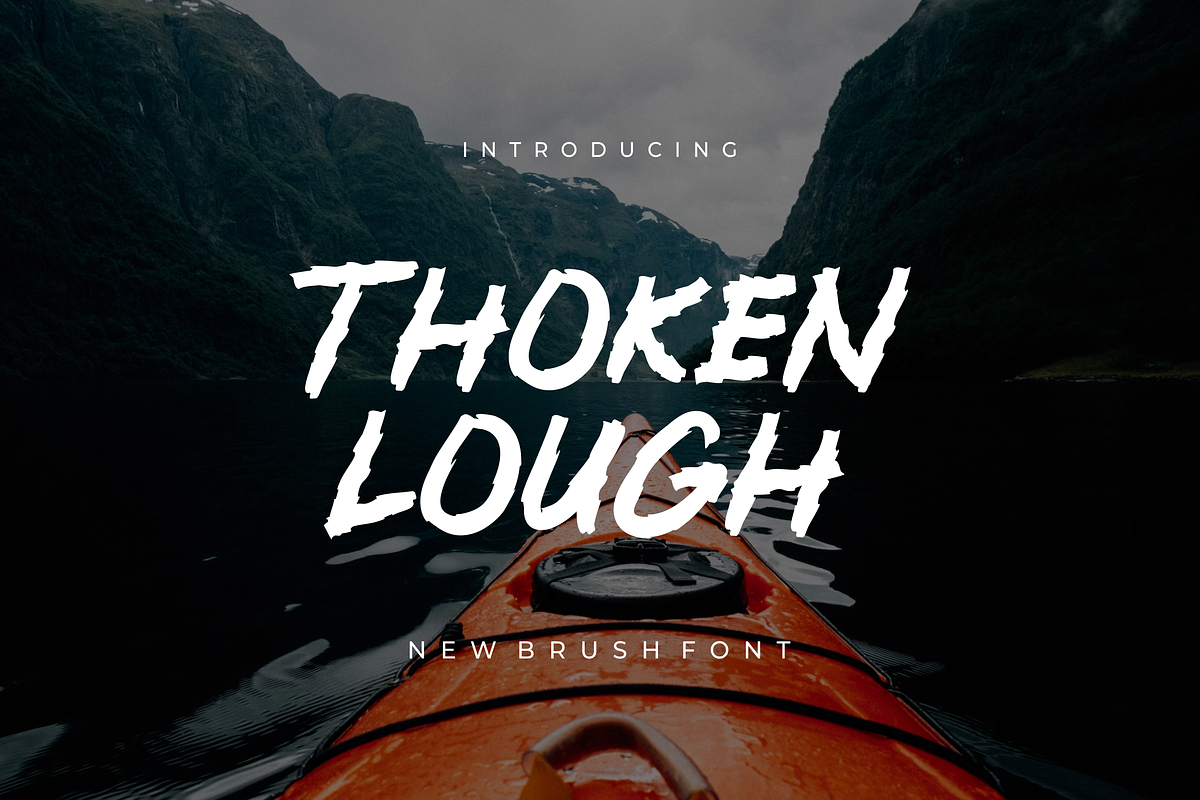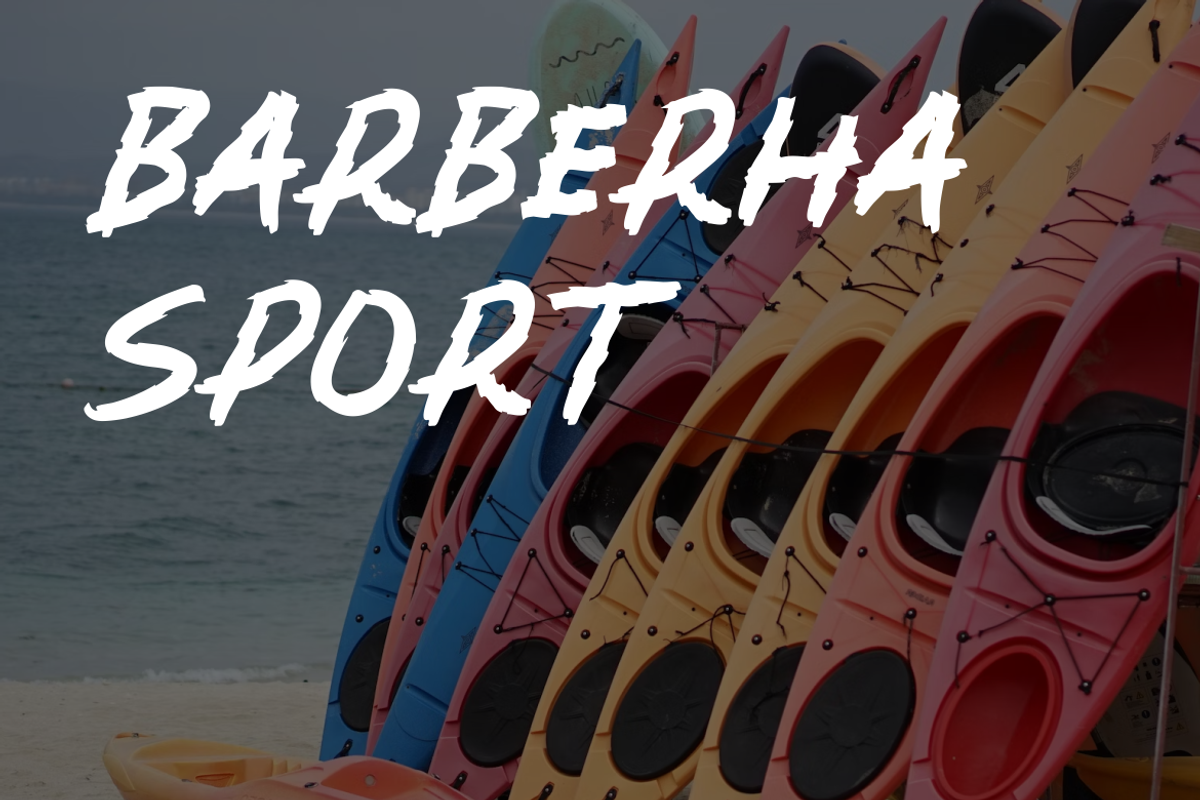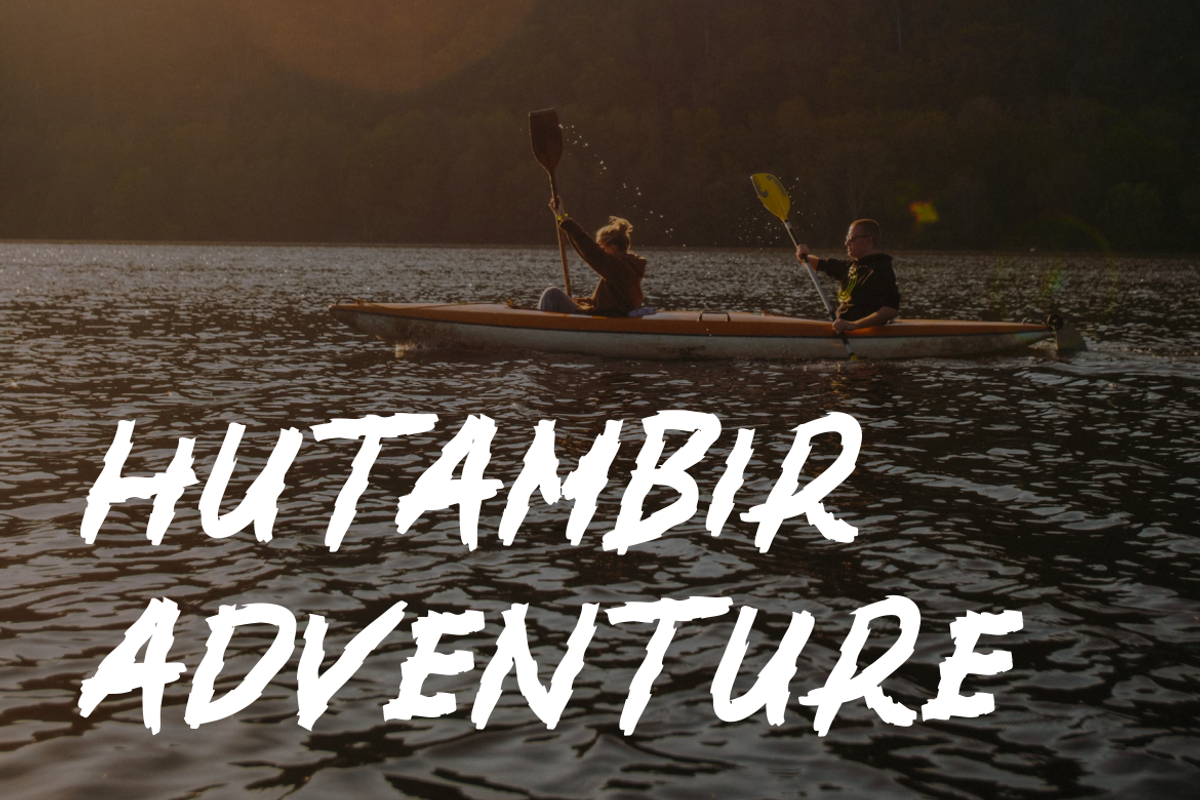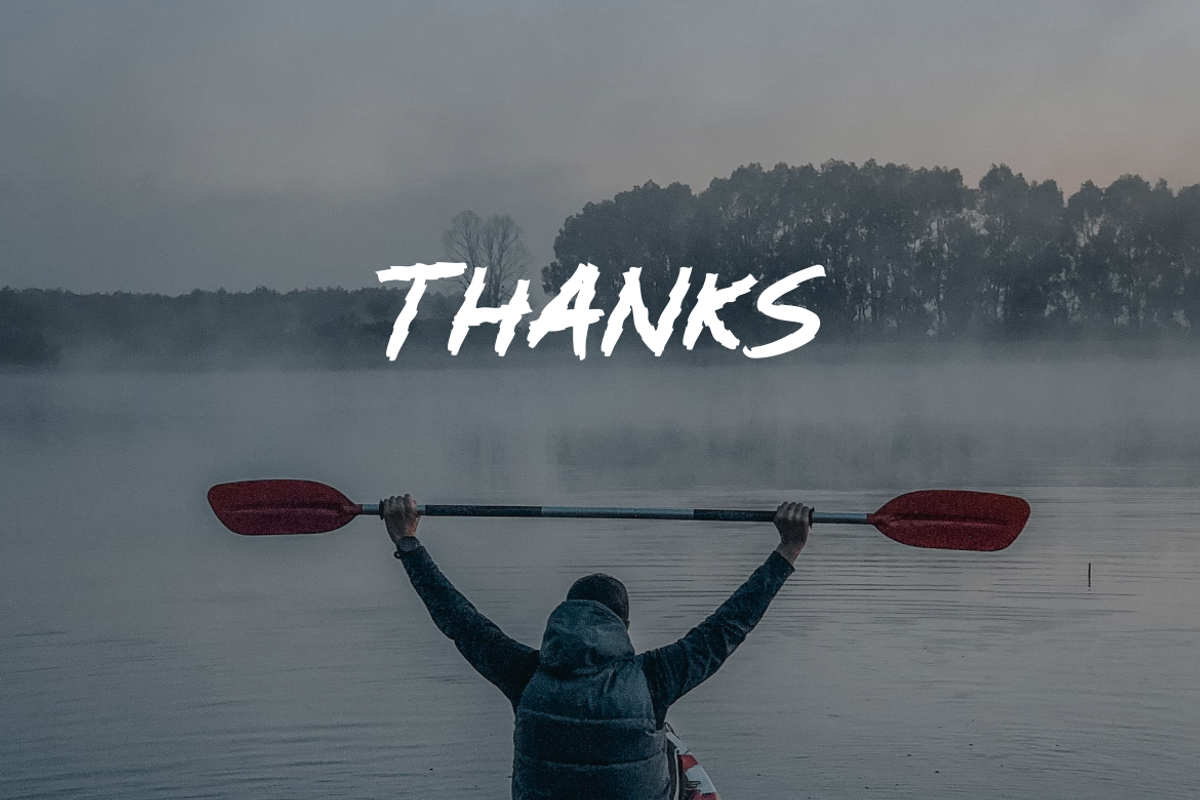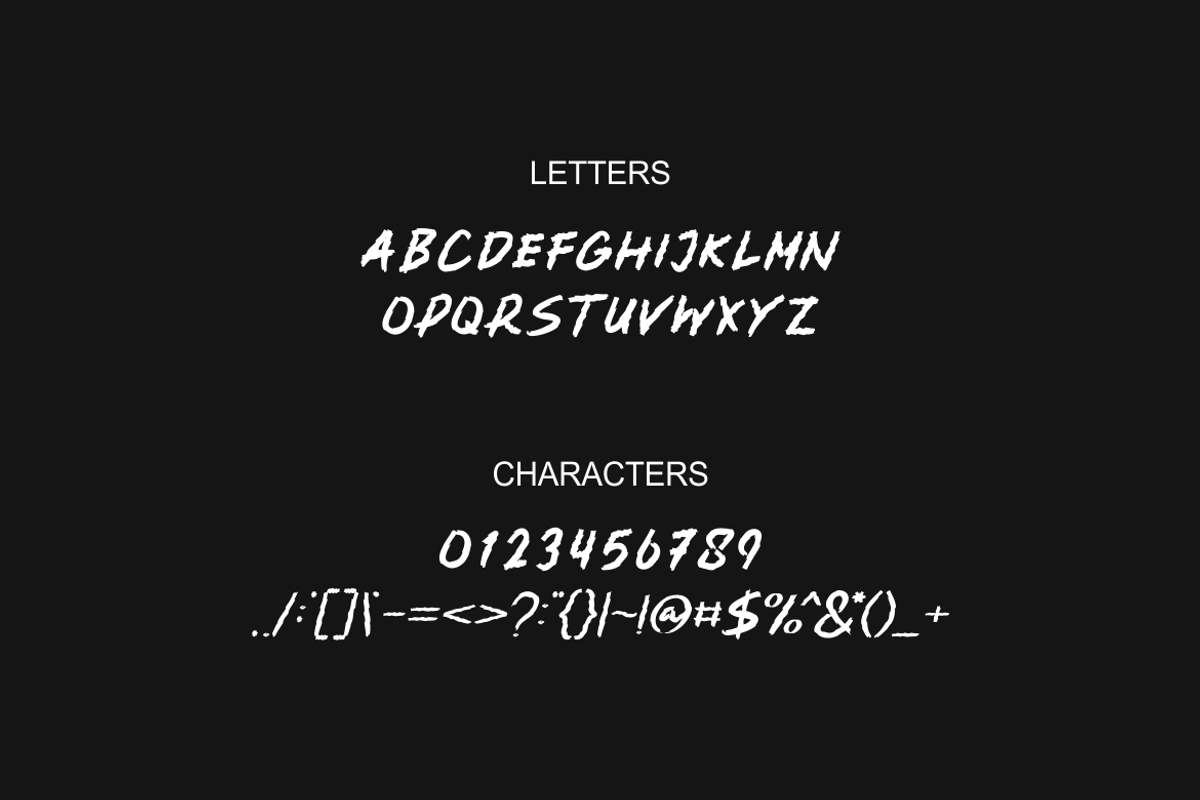
Thoken Lough - Font
- Modern Font is a bold and authentic display font. The font is suitable for any branding project like logo, t-shirt printing,, and many more. outstanding in a wide range of contexts.